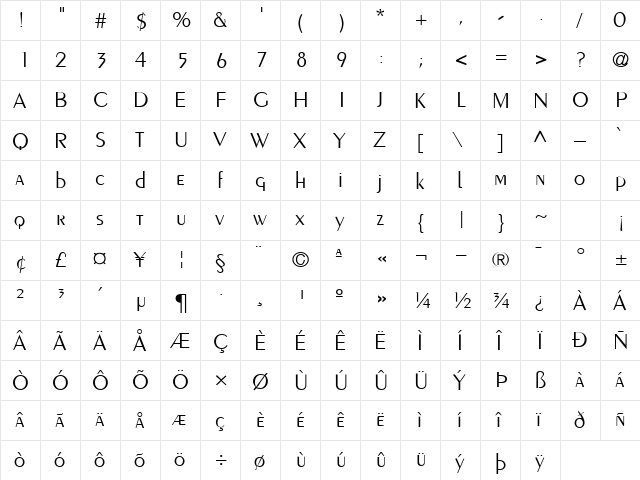
PT Eclectic Normal
Design Context for PT Eclectic Typeface
PT Eclectic takes a measured approach to typography — its balanced proportions and neutral character make it a reliable workhorse for both digital and print work.
Pro Tip: Use PT Eclectic in both headline and body roles to test its range before committing to a single application.